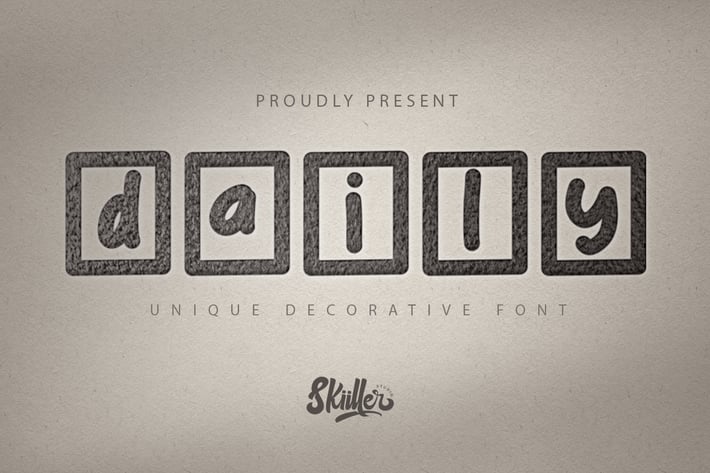
Daily Font
Daily font. This font will very suitable for your fun project like children party, cute quotes, or any cute fun related projects. Grab it now !